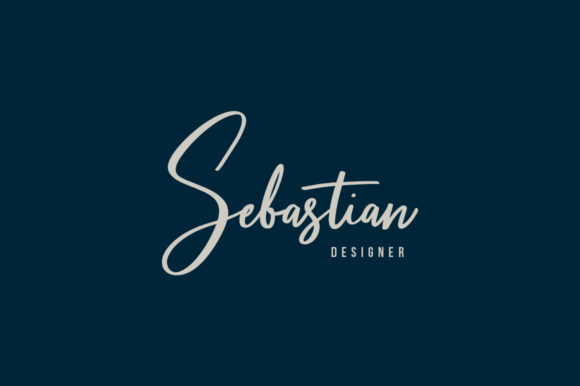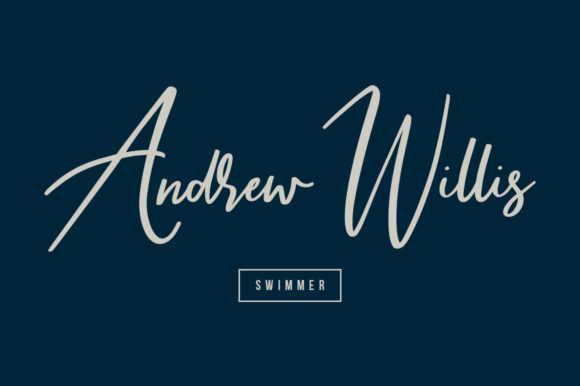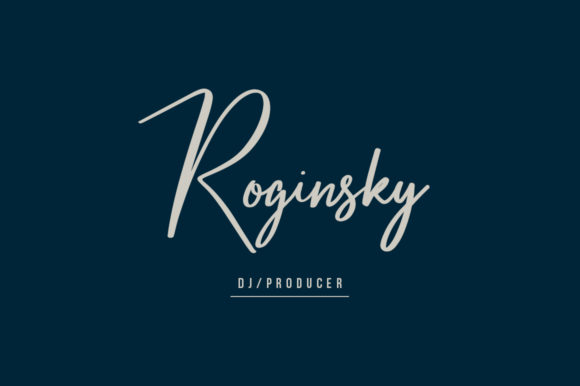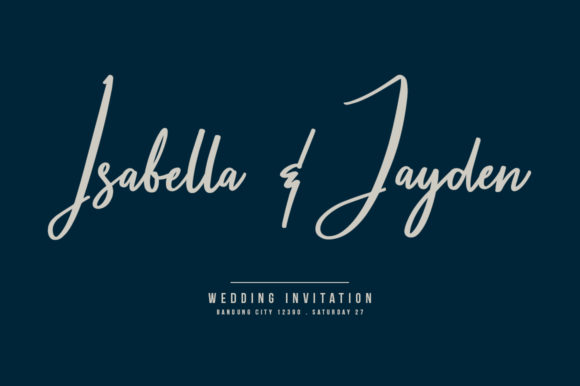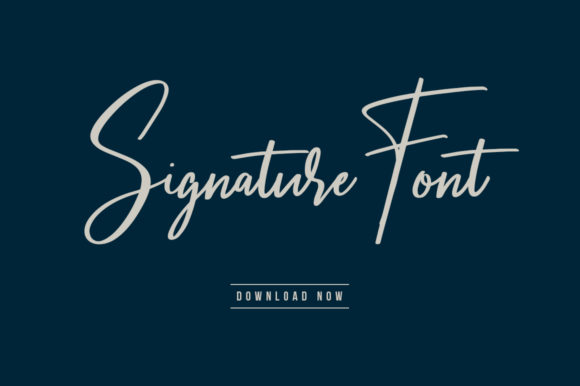
Smith Allison Font
About Smith Allison Font
Smith Allison is a luxurious script font. It features a stylish look that will look amazing in logos, signatures, branding, stationery, quotes and much more!